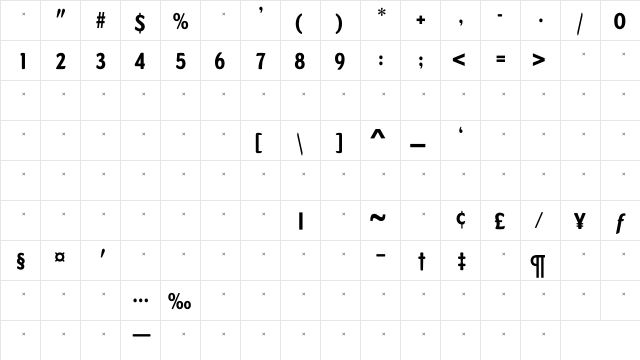
DundeeExtraBoldCondTab Regular Font Preview
Design Context for DundeeExtraBoldCondTab Typeface
DundeeExtraBoldCondTab takes a measured approach to typography — its balanced proportions and neutral character make it a reliable workhorse for both digital and print work. Its bold stroke weight gives it real presence on the page. The condensed width makes it efficient for tight spaces without sacrificing legibility.